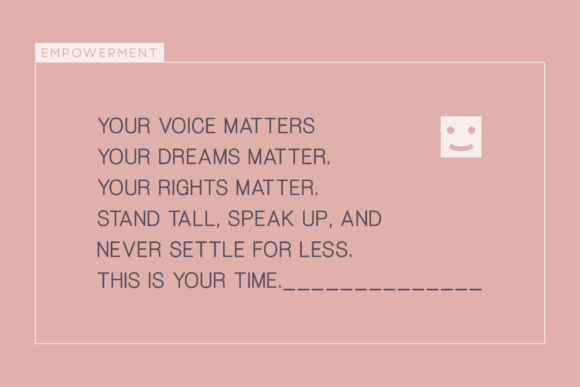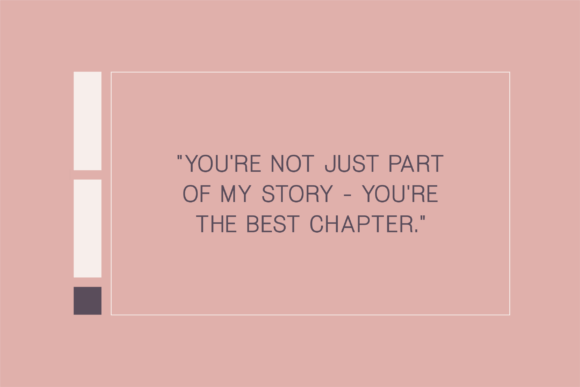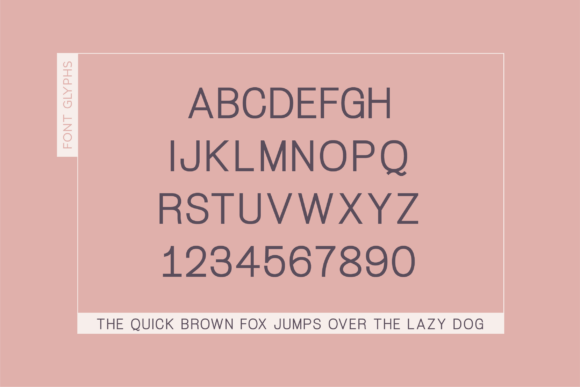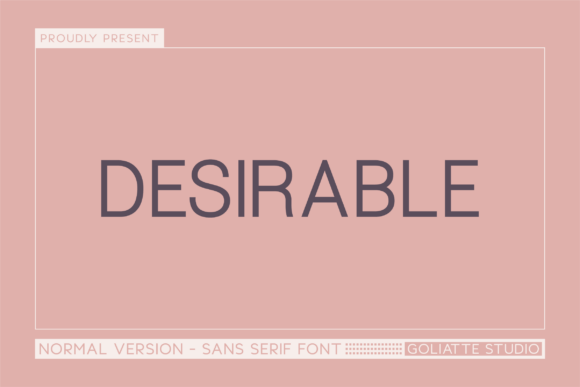
Introduction to Desirable Font
Introducing Desirable – A Modern Sans Serif Typeface Desirable is a bold, all-caps sans serif font designed for the modern designer.
With its clean lines and minimalist aesthetic, this typeface exudes strength and authority It is perfect for projects that require a sense of professionalism and impact.